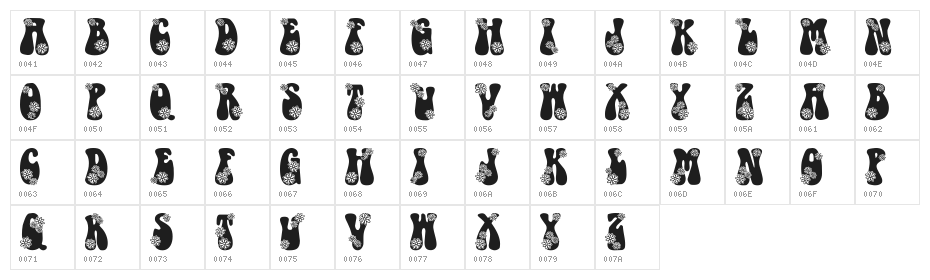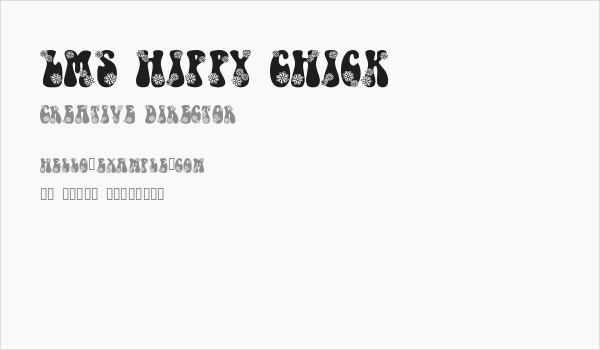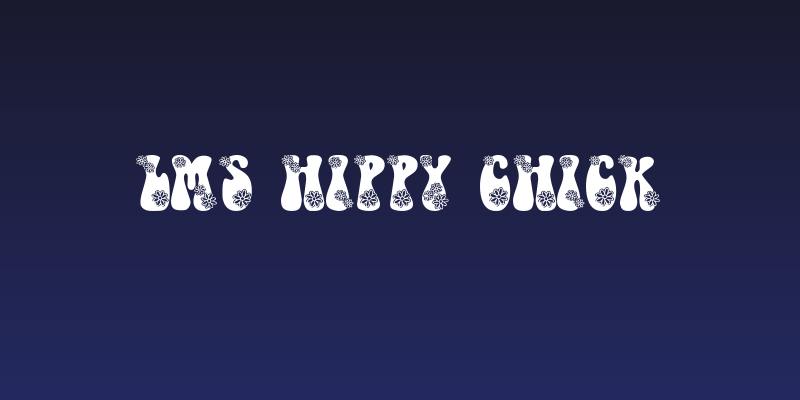
LMS Hippy Chick Font
LMS Hippy Chick Description
This playful and decorative font features bold, rounded letters adorned with whimsical floral patterns, evoking a sense of the 1960s and 70s hippie culture. The characters are designed with a groovy, free-spirited aesthetic, making them ideal for projects that require a fun and retro vibe. The floral embellishments add a unique touch, making each letter stand out with its own personality. This font is perfect for capturing the essence of peace, love, and creativity, making it suitable for a variety of artistic and expressive applications.
| Proposed Projects | Ideal for retro-themed posters, event invitations, album covers, and creative branding projects. |